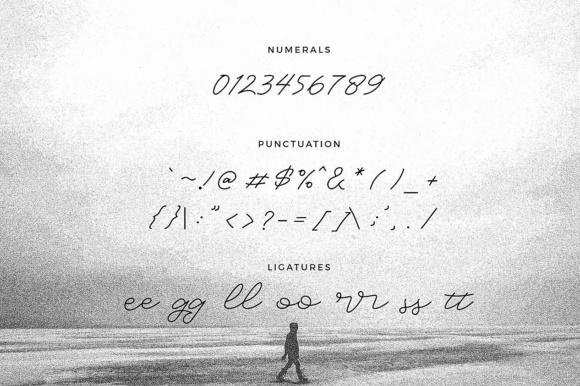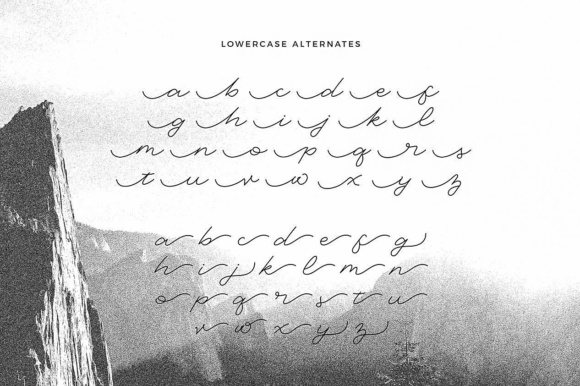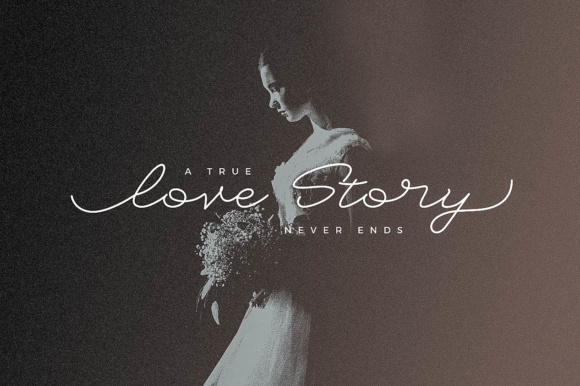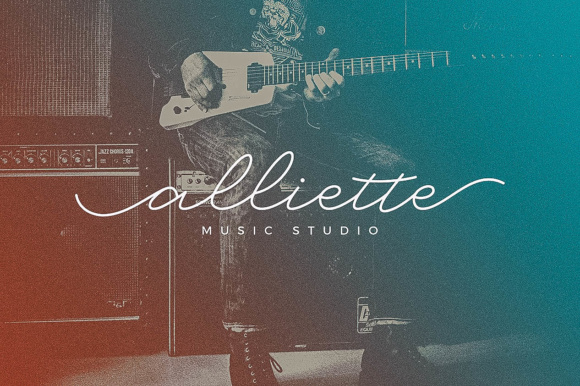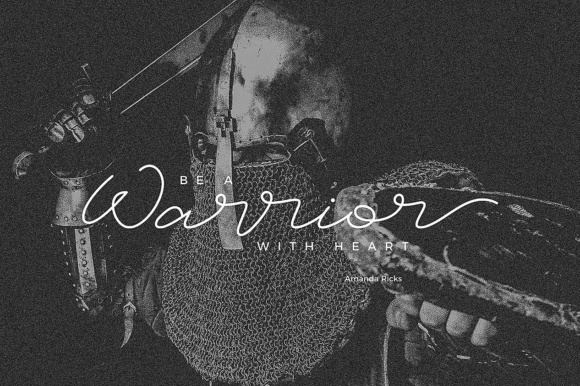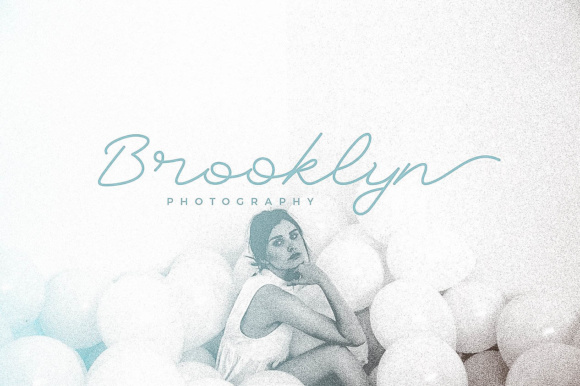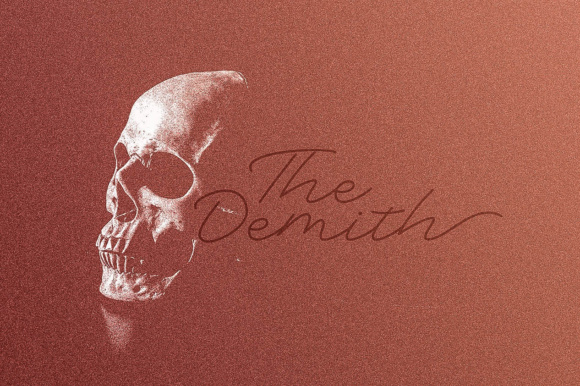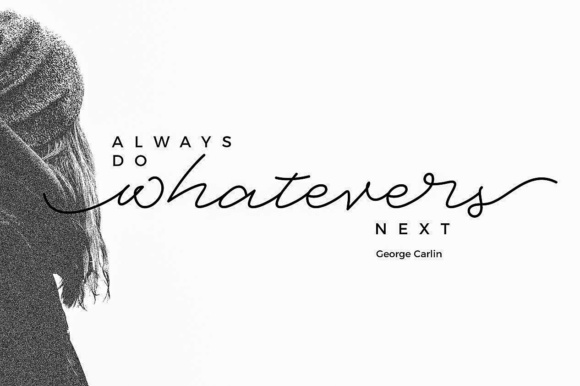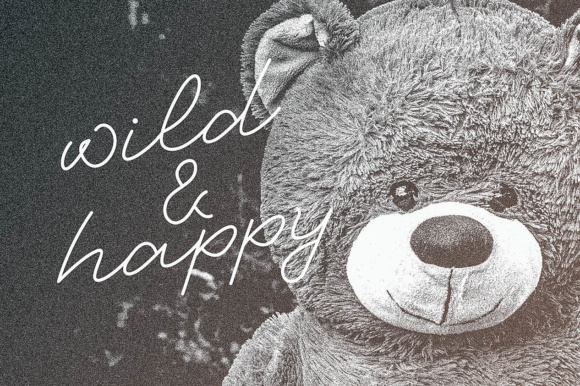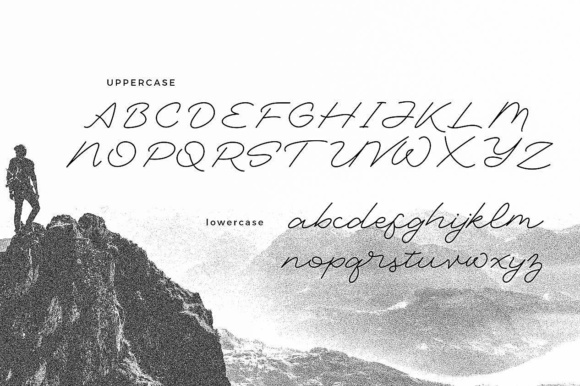
Martha Font
About Martha Font
Martha is a beautiful and simple monoline script font, perfect for use in a wide range of projects. This signature font is a great way to give your work a ton of stylish appeal.